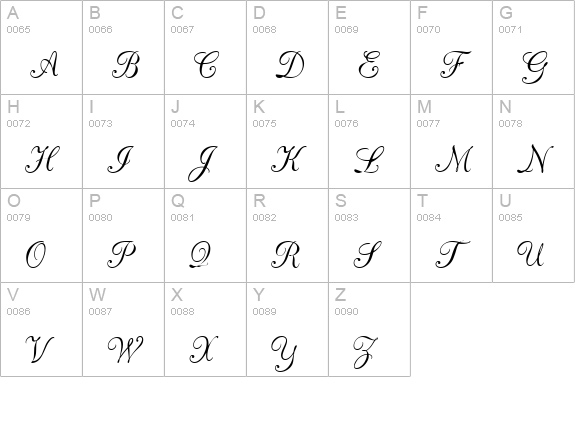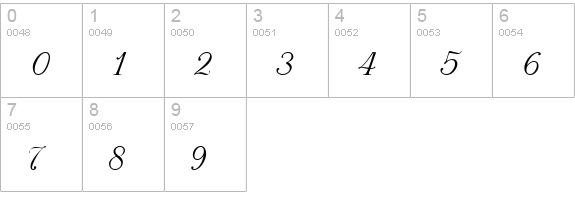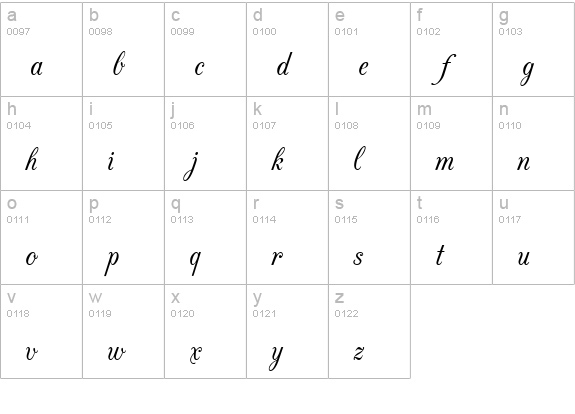
CAC Champagne Font Details
CAC Champagne font is a stunning typeface that exudes elegance and sophistication. With its graceful curves and delicate strokes, this font captures the essence of luxury and celebration. Whether it's used for invitations, greeting cards, or branding materials, CAC Champagne adds a touch of class to any design. The beauty of CAC Champagne lies not only in its exquisite design but also in its versatility. This font effortlessly adapts to various design styles, making it suitable for both formal and informal occasions. Its clean and legible characters ensure that your message is clear and captivating. What makes CAC Champagne even more remarkable is that it is freely available to download at FontsMarket.com. This means that you can enhance your projects with this exquisite font without breaking the bank. The generosity of this free font allows designers and creatives from all walks of life to access and utilize a high-quality typeface that elevates their work. Whether you're designing a wedding invitation, a restaurant menu, or a luxury brand logo, CAC Champagne is the perfect choice to add a touch of refinement and elegance. Its timeless appeal and versatility make it a valuable asset in any designer's toolkit. Download CAC Champagne today at FontsMarket.com and experience the beauty and elegance of this remarkable font firsthand. Elevate your designs and leave a lasting impression with the timeless charm of CAC Champagne.